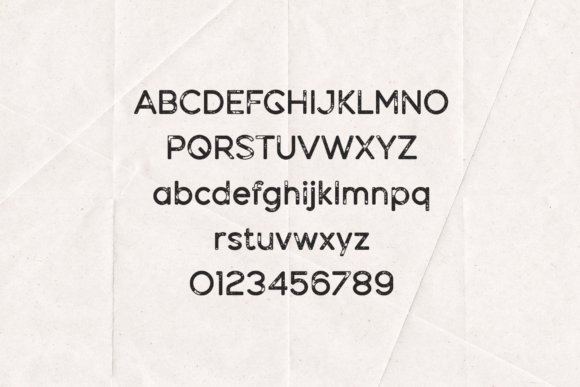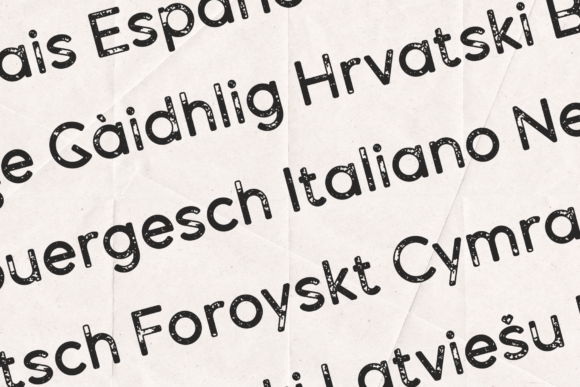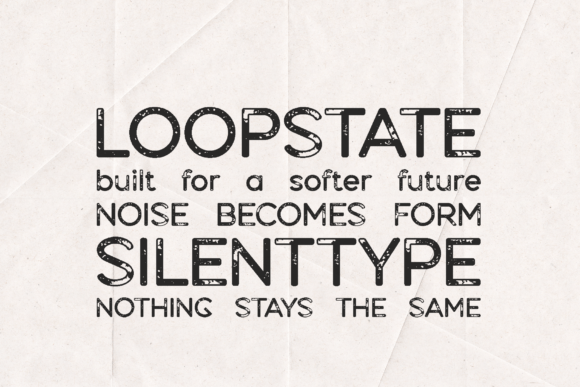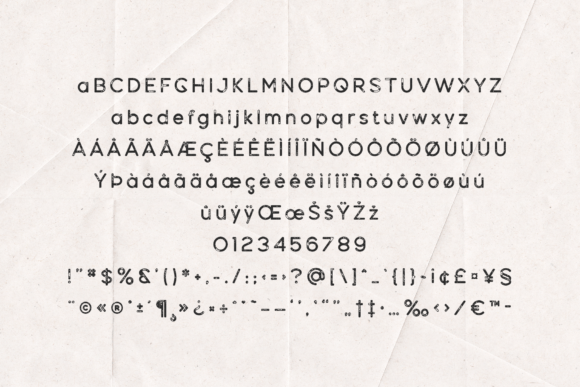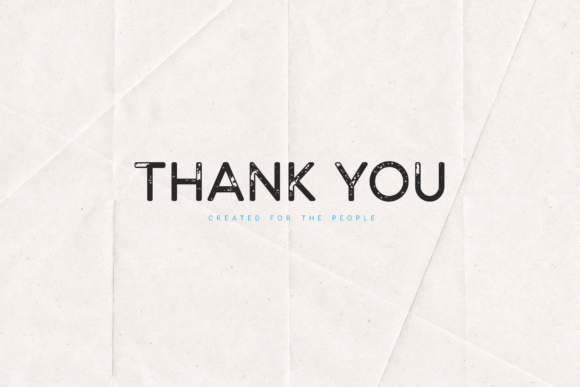
Introducing Denise Rough Edition: The Ultimate Dense Font for Bold Designs
Are you tired of using the same old fonts in your designs? Do you want to add a touch of personality and authenticity to your work? Look no further than Denise Rough Edition, a bold distressed sans serif font that’s perfect for designers looking to create bold, eye-catching designs with a retro twist.
The Inspiration Behind Denise Rough Edition
Denise Rough Edition is inspired by the worn, vintage look of ink-stamped letters, old posters, and handcrafted signage. The font’s creator wanted to capture the raw, authentic feel of printed materials that have been weathered by time and use. The result is a dense font with a textured, grunge effect that adds a unique personality to any design.
What Makes Denise Rough Edition So Special?
Denise Rough Edition is more than just a font – it’s a design statement. With its bold, distressed letterforms and dense vintage texture, this font is perfect for designers who want to create designs that stand out from the crowd. Here are just a few reasons why Denise Rough Edition is a must-have for any designer:
- Unique Texture: The font’s textured letterforms create a natural grunge effect that adds a layer of depth and interest to any design.
- Retro Personality: Denise Rough Edition has a distinctly retro feel that’s perfect for designers who want to create designs with a vintage vibe.
- Versatility: This font is perfect for a wide range of design applications, from bold headlines and branding to posters and packaging.
- Easy to Use: Denise Rough Edition is a sans serif font that’s easy to read, even in large blocks of text.
How to Use Denise Rough Edition in Your Designs
Denise Rough Edition is a versatile font that can be used in a wide range of design applications. Here are just a few ideas to get you started:
- Bold Headlines: Use Denise Rough Edition to create bold, eye-catching headlines that grab attention.
- Branding: This font is perfect for creating unique, memorable brand identities that stand out from the crowd.
- Posters: Denise Rough Edition is a great choice for posters, flyers, and other promotional materials.
- Packaging: Use this font to add a touch of personality to your packaging designs.
Tips for Getting the Most Out of Denise Rough Edition
Here are a few tips for getting the most out of Denise Rough Edition:
- Experiment with Different Sizes: Denise Rough Edition looks great in a wide range of sizes, from small captions to large headlines.
- Play with Color: This font looks great in a wide range of colors, from bold brights to muted earth tones.
- Combine with Other Fonts: Denise Rough Edition pairs well with a wide range of other fonts, from clean sans serifs to elegant scripts.